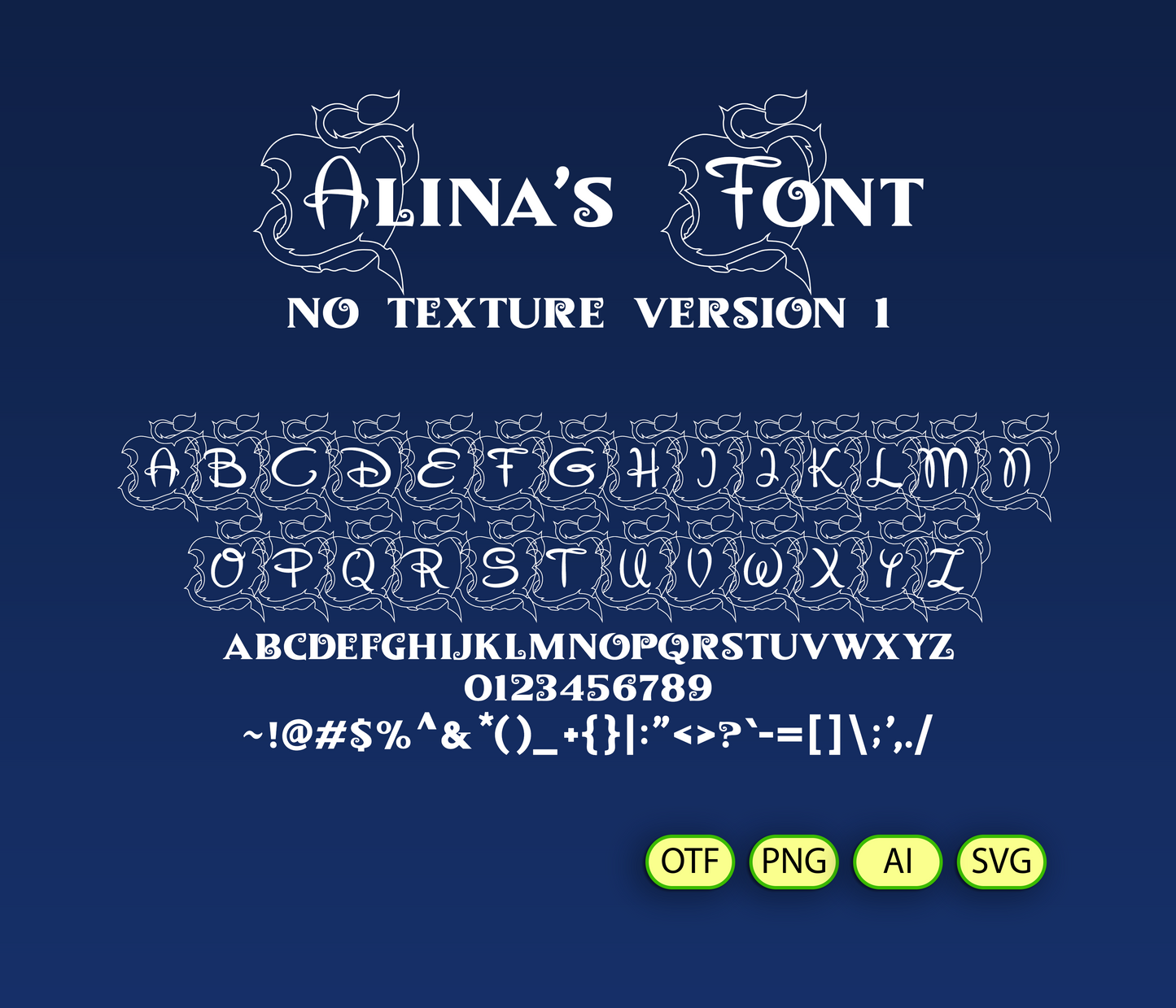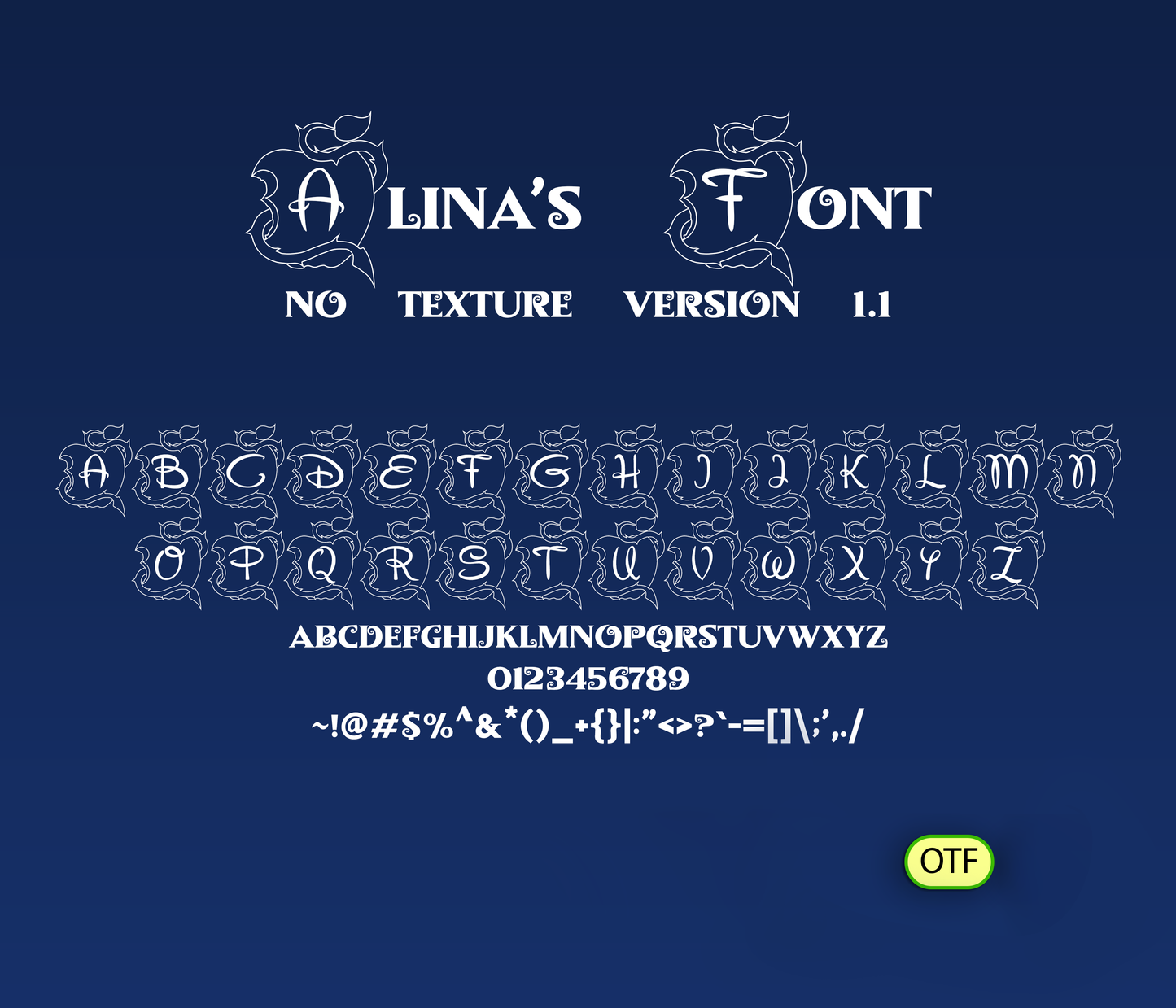
Next-Gen Royals Font
Step into the spellbinding world of modern enchanted teens with our Next-Gen Royals font, capturing the essence of magical bloodlines and contemporary charm. Perfect for fantasy enthusiasts, party planners, event organizers, and designers, this font brings the bold, rebellious spirit of enchanted youth to your projects. Create stylish materials, merchandise, or digital content with the dynamic energy of modern magic.
Our Next-Gen Royals font features edgy, modern lines and bold characters reflecting the world of magical teen royalty. Ideal for:
- Event Promotions: Create chic invites, posters, and banners for teen events, magical gatherings, and themed celebrations that capture the spirit of next-generation enchantment
- Merchandise Design: Perfect for t-shirts, posters, and accessories that showcase the trendy side of magical heritage
- Digital Media: Enhance websites, blogs, and social media with stylish headers and graphics that express the blend of legacy and modernity
- Fantasy Content: Add authentic flair to fan art, fashion designs, and creative projects inspired by magical teen stories
- Personal Projects: Bring contemporary magic to scrapbooking, DIY crafts, and home decor inspired by the world of enchanted youth
Our font pays tribute to the dynamic world of modern magical teens, empowering your designs with its edgy and enchanted spirit. Whether crafting promotional materials, designing merchandise, or adding a contemporary touch to personal projects, this font communicates the bold essence of magical youth culture. Ready to inject trendy spells into your creations? This font is your key to exciting, impactful design.